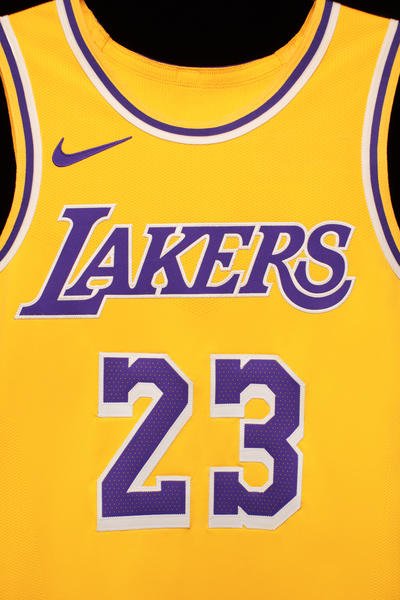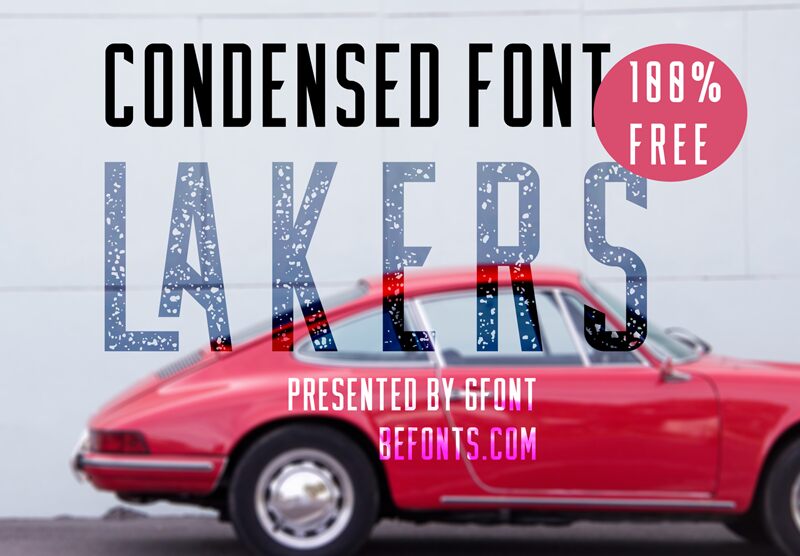
Lakers Font
Lakers font. Los angeles lakers font free alternatives. Weve found a free font too. Lakers free font is a classic all caps sans serif font whic may be used for absolutely different purposes from the design of cute postcards to use in a rough vintage old school logos.
Lakers font is the most popular font across the globe. The lettering for the lakers logotype resembles a font named bodoni italic created by gerald giampa. This font designed by manfred klein.
Lakers font here refers to the font used in the logo of lakers which is a national basketball association nba team based in los angeles california. The font used for los angeles lakers logo is very similar to bauer bodoni black italic which is a neoclassical serif font designed by giambattista bodoni heinrich jost and published by linotype. Nba lakers refers to the font used in the lettering of los angeles lakers jersey.
This is not the official font and only resembles the font used for lettering numbers and player names. The numbers letters were originally created by nick whitford and dennis lmupepbander ittner. The font is a commercial one and can be purchased here.